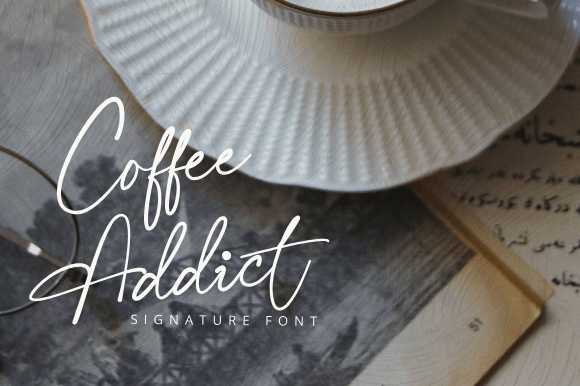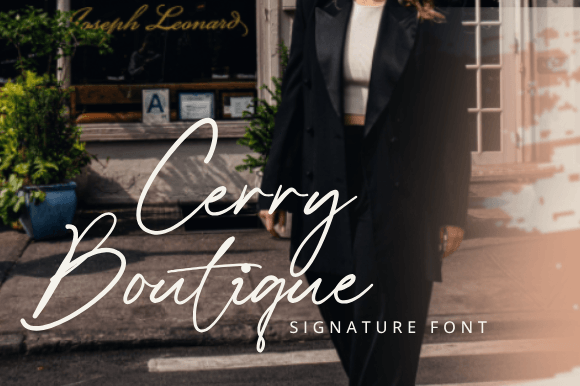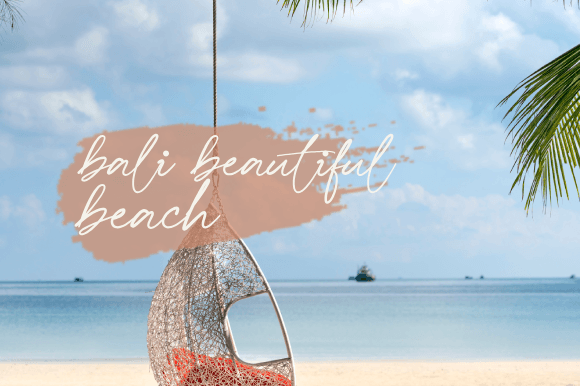
Brilliant Rose Font
The “Brilliant Rose” font exudes a beautiful blend of elegance and playfulness, making it a charming choice for a variety of design projects. The subtle curves of each letter evoke a sense of grace, reminiscent of the petals of a blooming rose. Sophisticated font designs are characterized by aesthetically crafted details, lending a touch of refinement to any text that adorns them.With a harmonious balance of classic and contemporary elements, “Brilliant Rose” offers an appeal suitable for both formal and creative contexts. The letterforms convey a refined feel, contributing to the overall sophisticated feel without sacrificing readability. The font’s sleek strokes and elegance add a romantic touch, making it an ideal choice for invitations, branding, and other projects that demand a touch of charm.